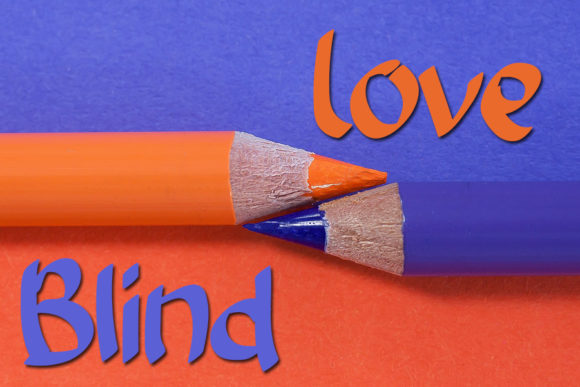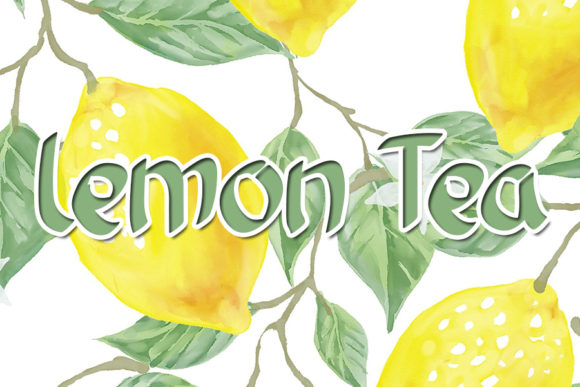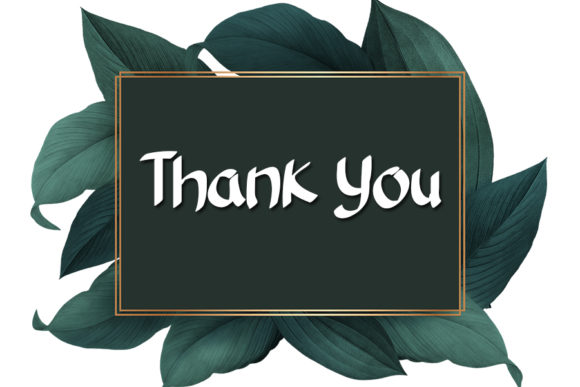
Introduction to Queen Star Font
Remember the moment when a spark of creativity strikes and you envision the perfect visual identity for your project? For designers, these moments are what make the job truly rewarding. One such moment could be discovering the perfect font that captures the essence of your creative vision, and for many, that moment might be met with the delightful Queen Star Font.
This charming display font is more than just a pretty face – it’s a high-quality design resource that offers a unique aesthetic for creating eye-catching logos, branding, and quotes. With its cute and bouncy style, Queen Star Font is the perfect choice for designers looking to add a touch of whimsy to their creative projects. And the best part? It’s available for a free download, making it an accessible and transparent background for any design need.
Key Features of Queen Star Font
- High-quality vector design with a transparent background, ideal for creative projects and designs.
- Unique, elegant design with a touch of royalty, perfect for projects that require a luxurious and sophisticated feel.
- Easy to customize and edit, making it a versatile design resource for various creative projects.
Honest Review: Queen Star Font
I recently stumbled upon the Queen Star Font and I have to say, it’s a gem. This font is perfect for any creative project that requires a touch of elegance and sophistication. The high quality of the font is immediately apparent, with crisp lines and a transparent background that makes it versatile for use on any design background.
- ✨ The Queen Star Font is incredibly versatile and can be used for a wide range of creative projects, from logos to typography-based art.
- ✨ The transparent background allows for seamless integration with any design element.
- ⚠️ The font may not be suitable for very large or complex designs, as it can be prone to pixelation.
- ⚠️ The font is not as extensive as some other font families, with a relatively limited character set.
Overall, I’m impressed with the Queen Star Font and would highly recommend it as a design resource for any creative project. While it may have a few limitations, its high quality and versatility make it a valuable addition to any designer’s toolkit.
Getting the Most Out of Queen Star Font
To get the most out of the Queen Star Font, use it as a design resource for your creative project. Experiment with different font sizes, colors, and styles to create a unique and eye-catching visual effect. Remember to pair the font with a high-quality image or background to enhance its impact.
The Queen Star Font is commonly used in graphic design, digital art, and typography projects. It is also a popular choice for social media graphics, blog posts, and marketing materials. Its versatility and unique style make it an ideal font for a wide range of creative applications.